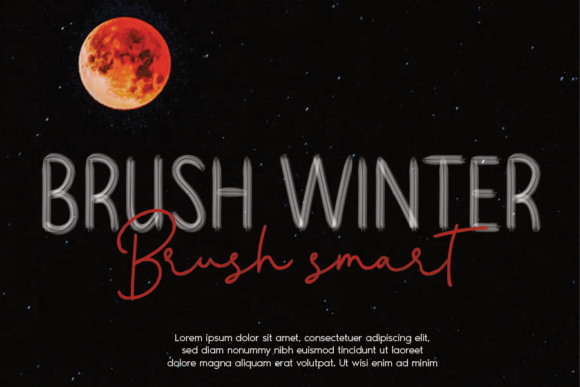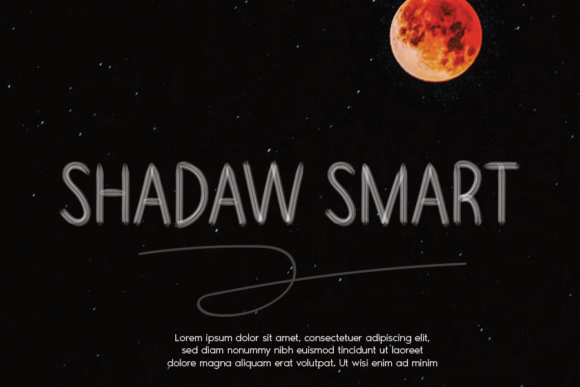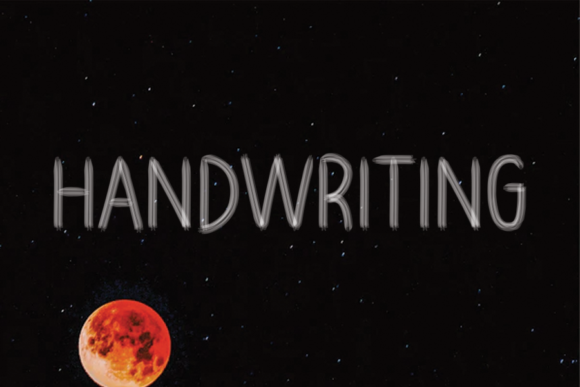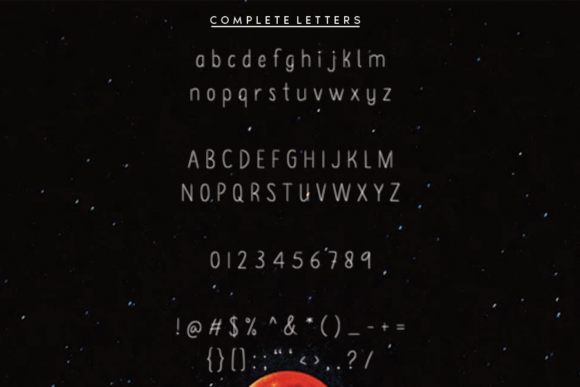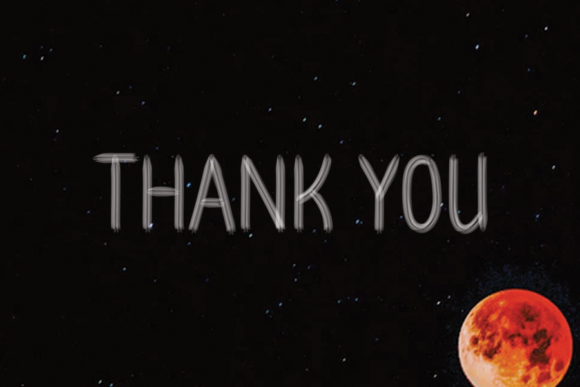
Brush Winter Font
About Brush Winter Font
Brush Winter is a beautiful handwritten font made with a brush pen. It will elevate a wide range of design projects to the highest level, be it branding, headings, wedding designs, invitations, signatures, logos, labels, and much more!